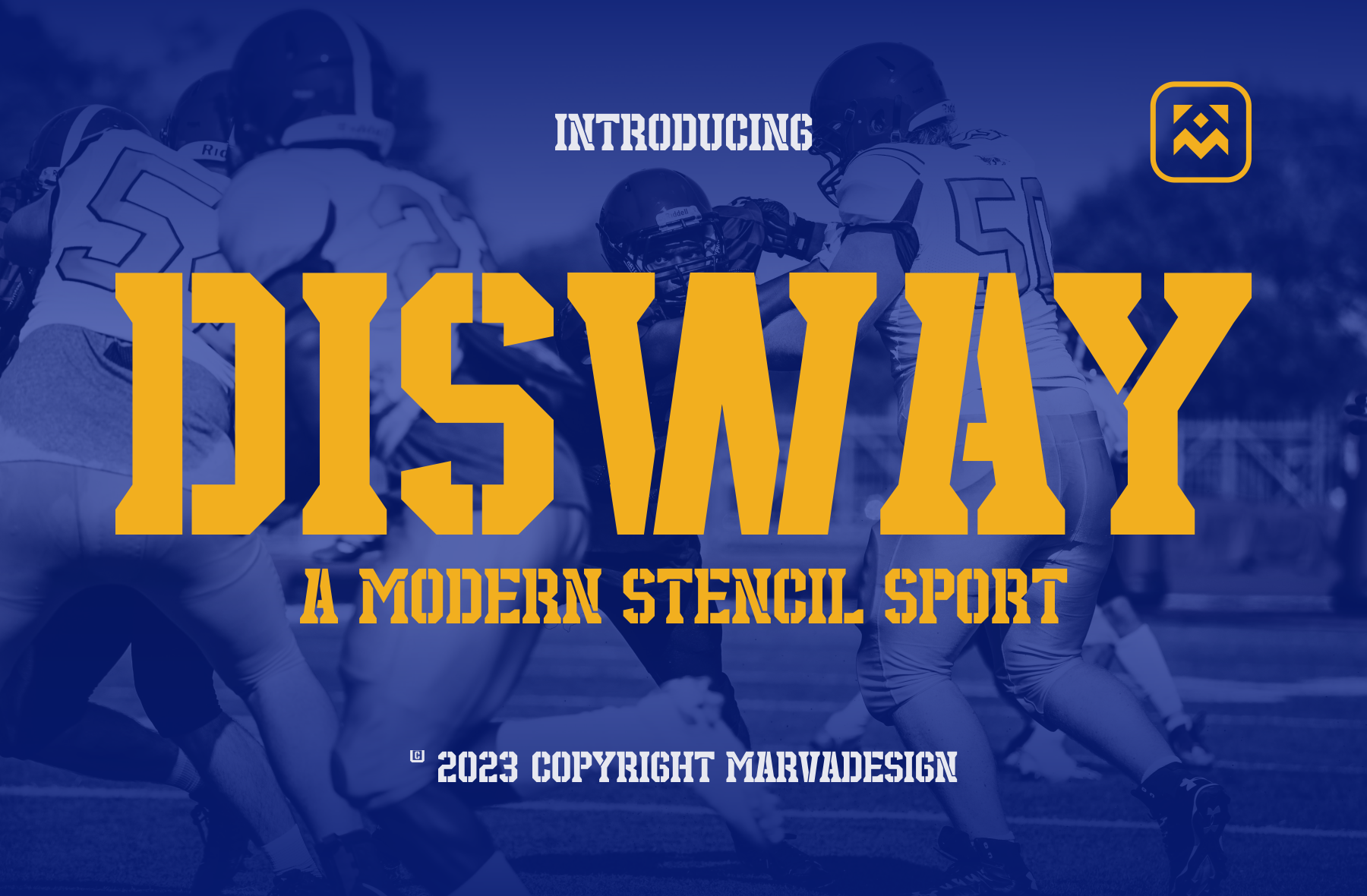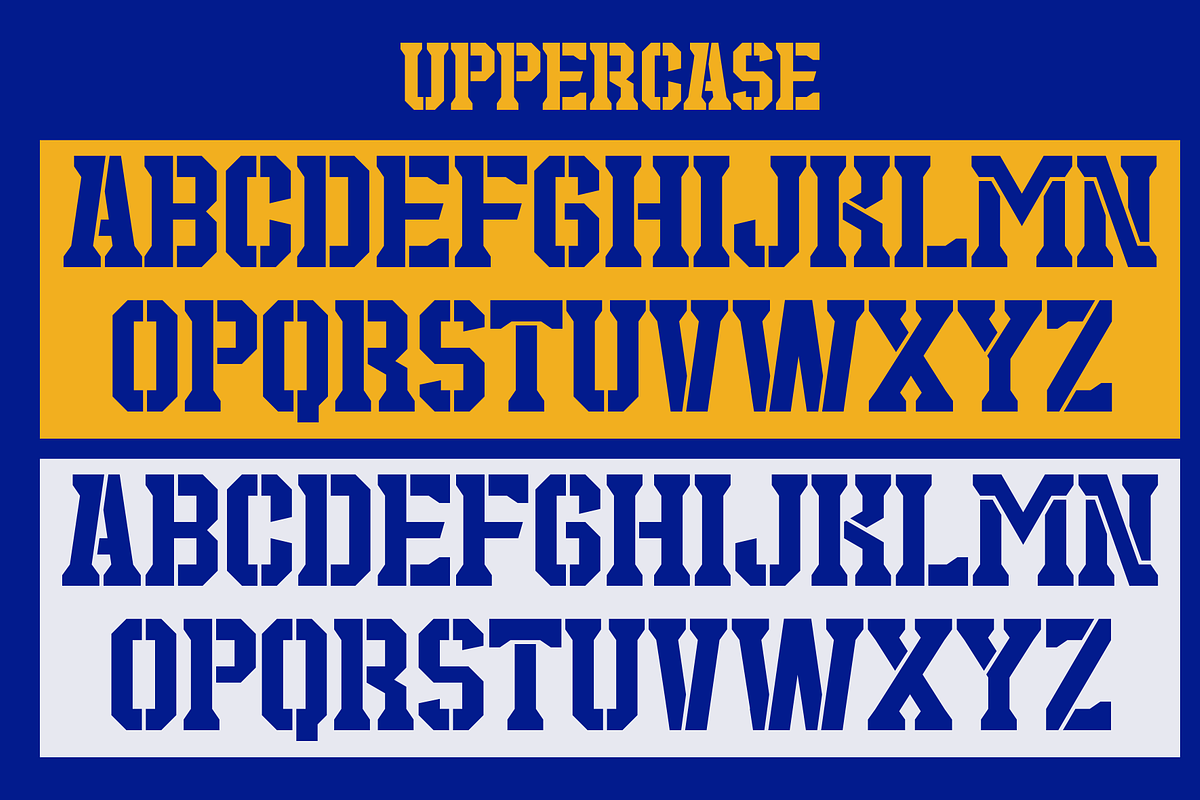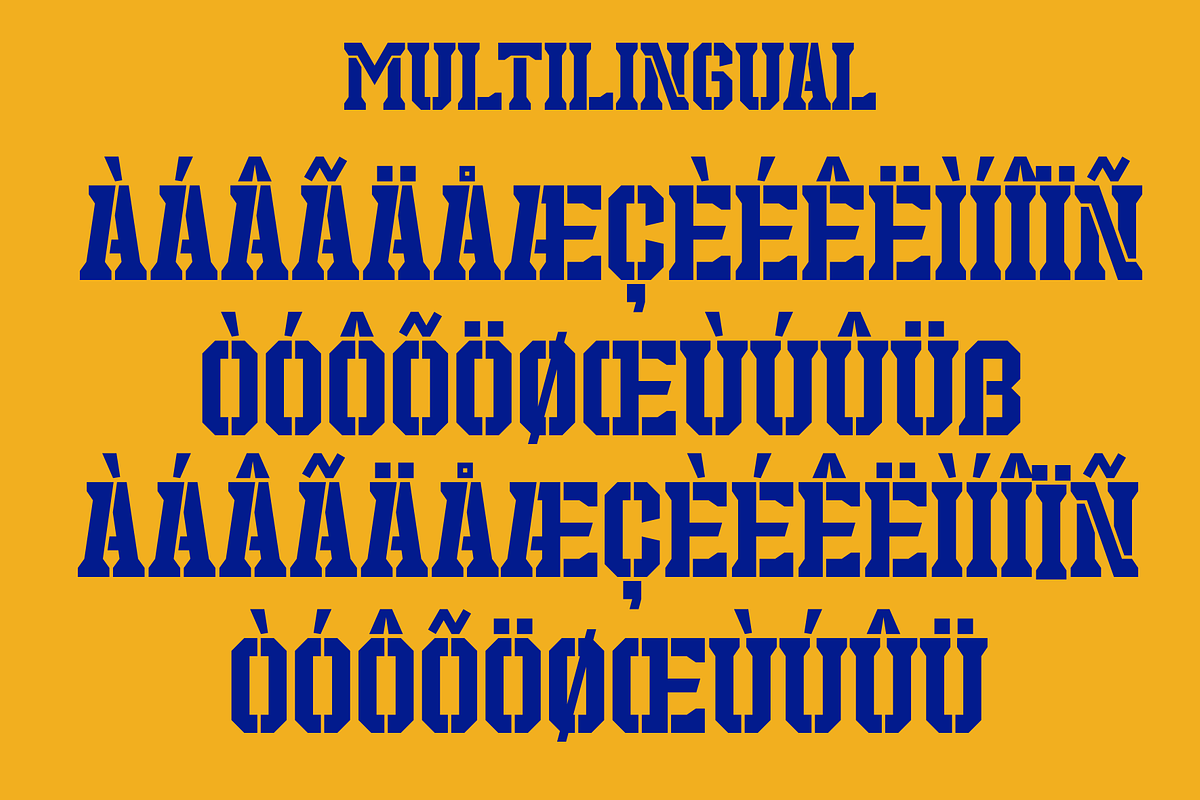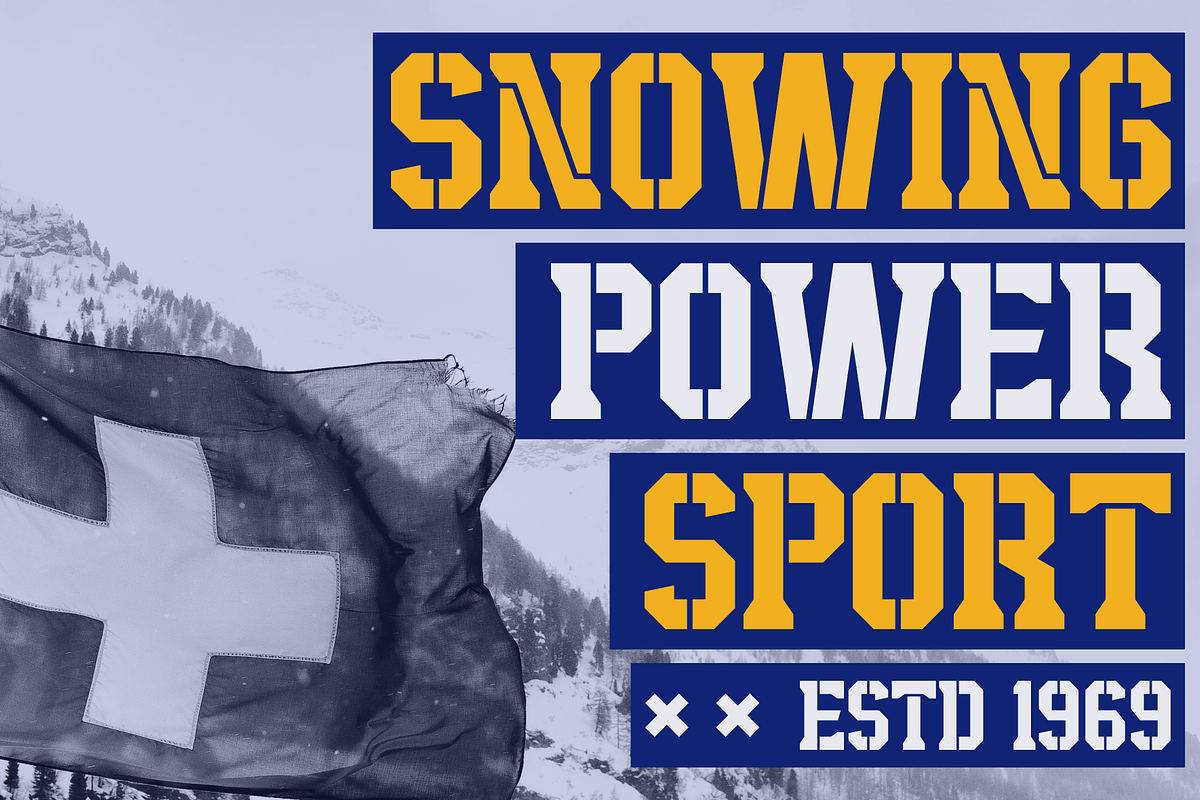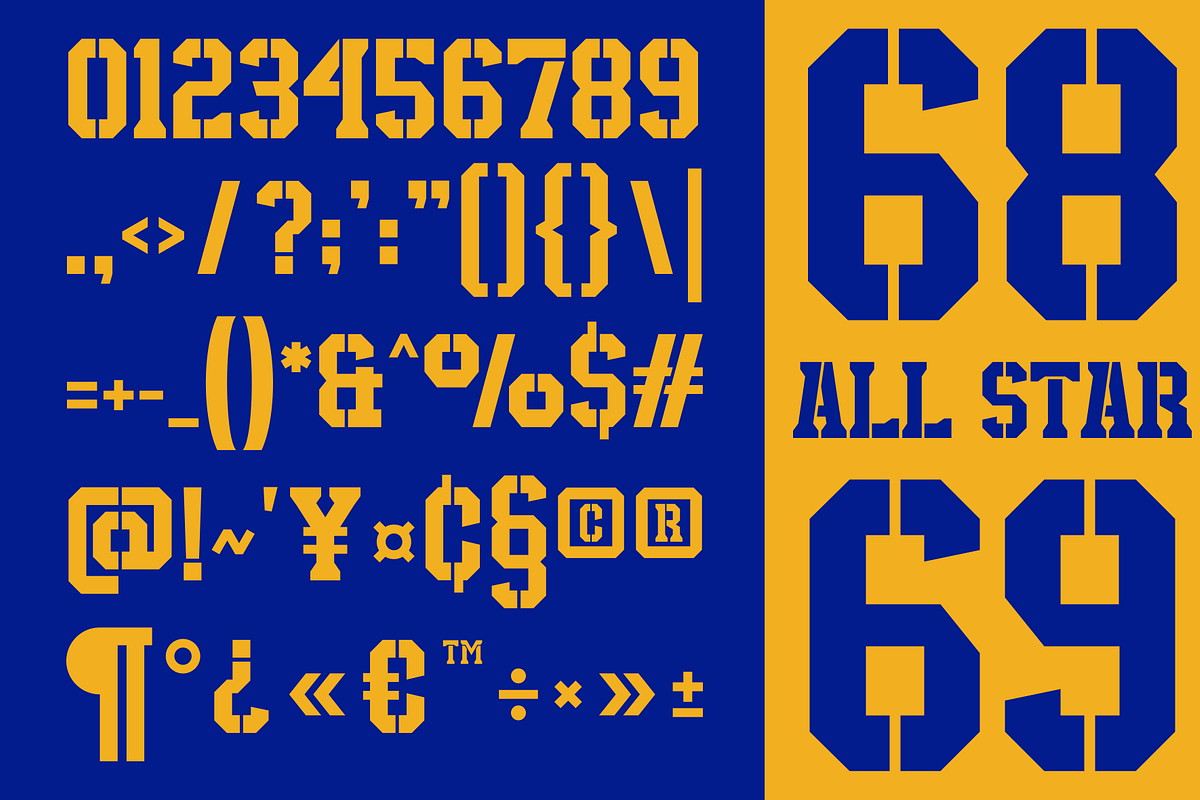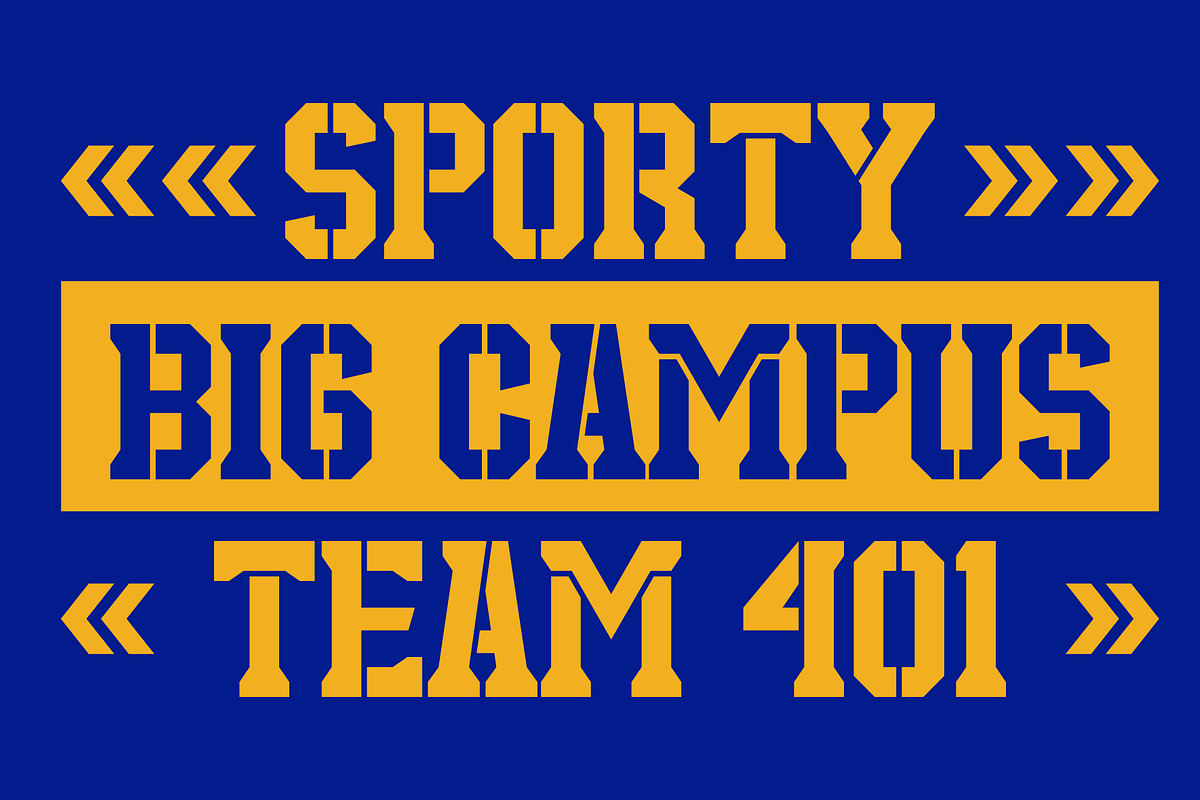
Disway - A Modern Stencil Sport Font
Introducing our new product Disway Font - Modern Font is a bold and authentic display font. The font is suitable for any branding project like logo, Template Design, Product and many more. outstanding in a wide range of contexts.